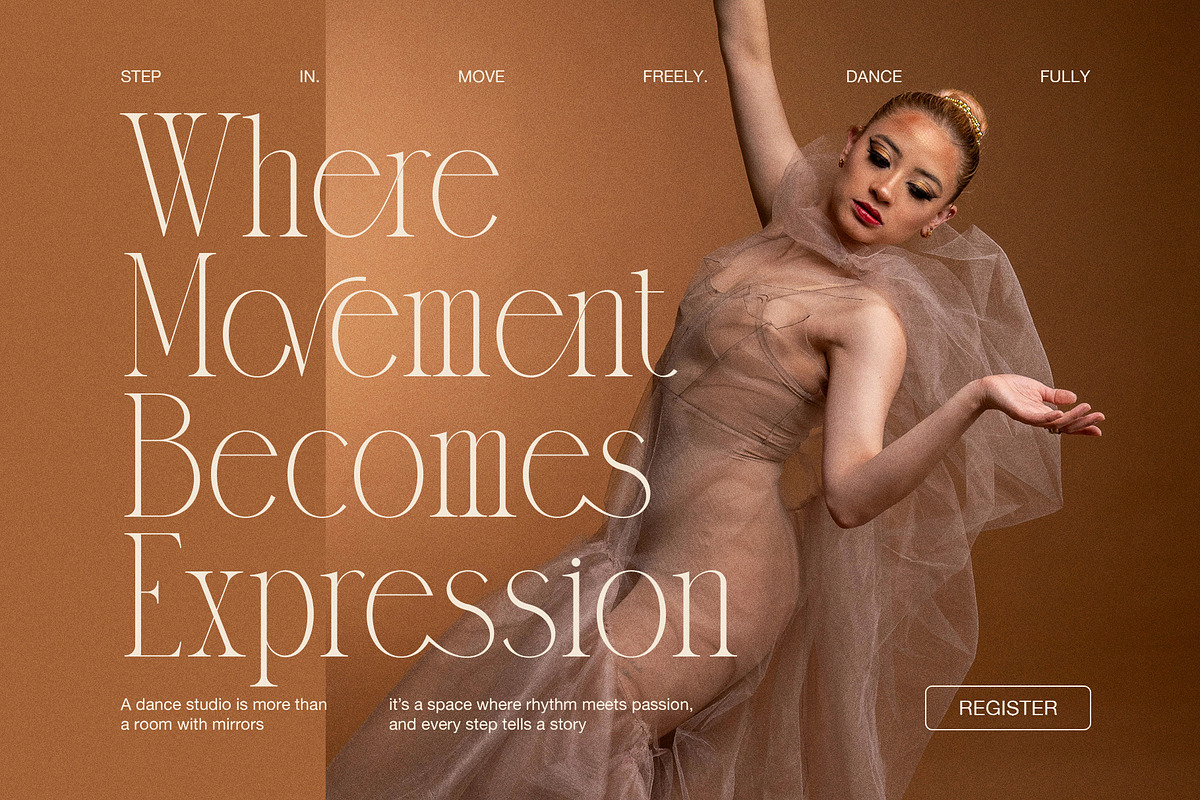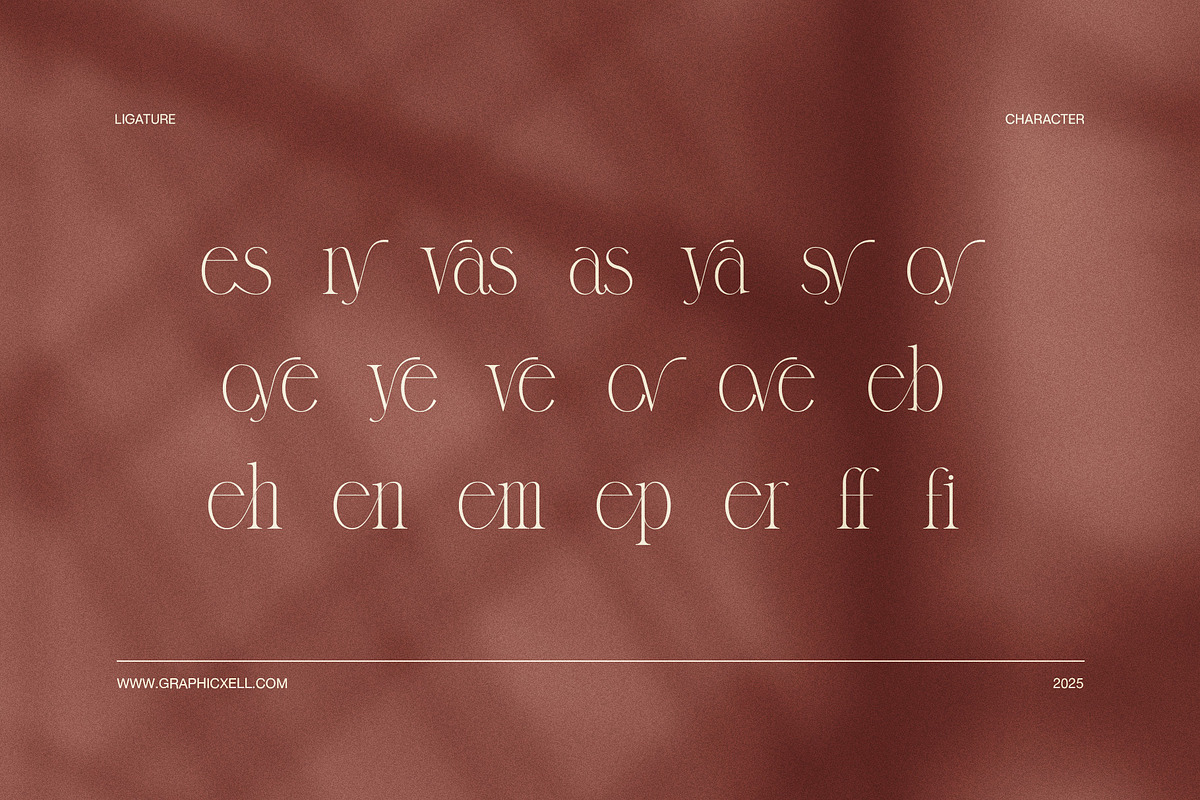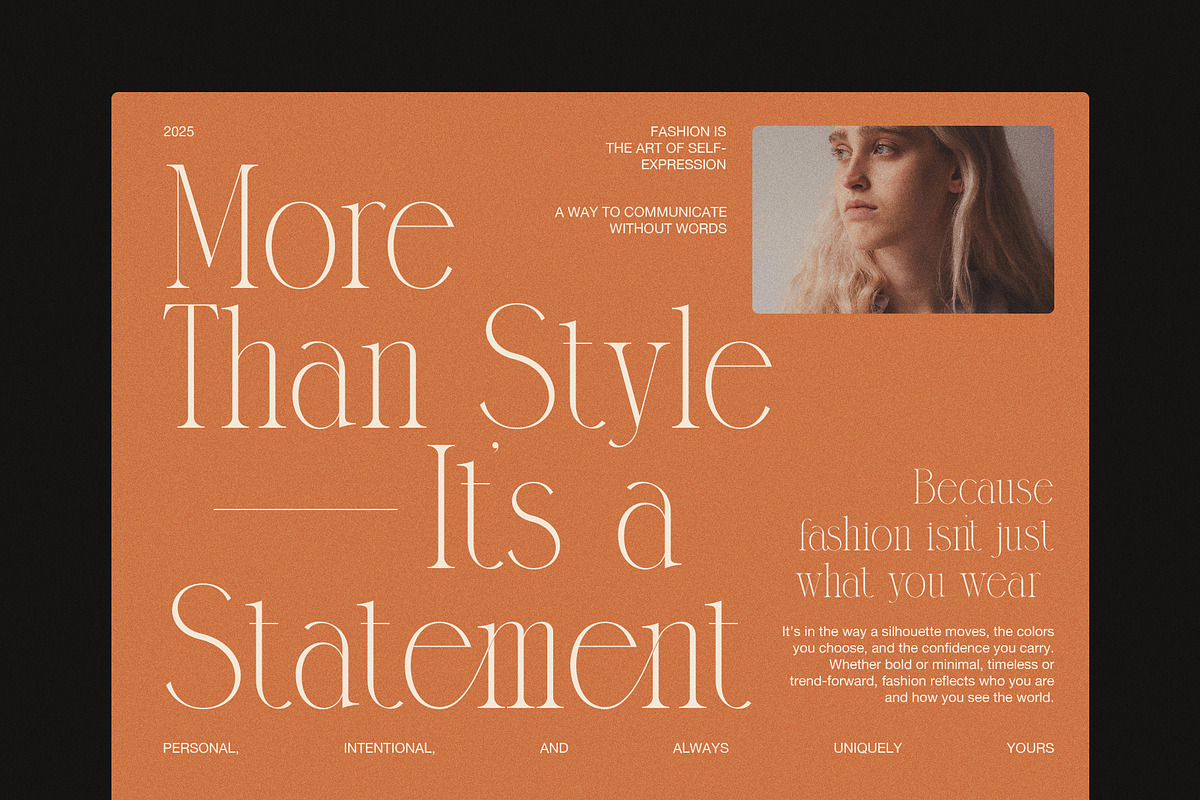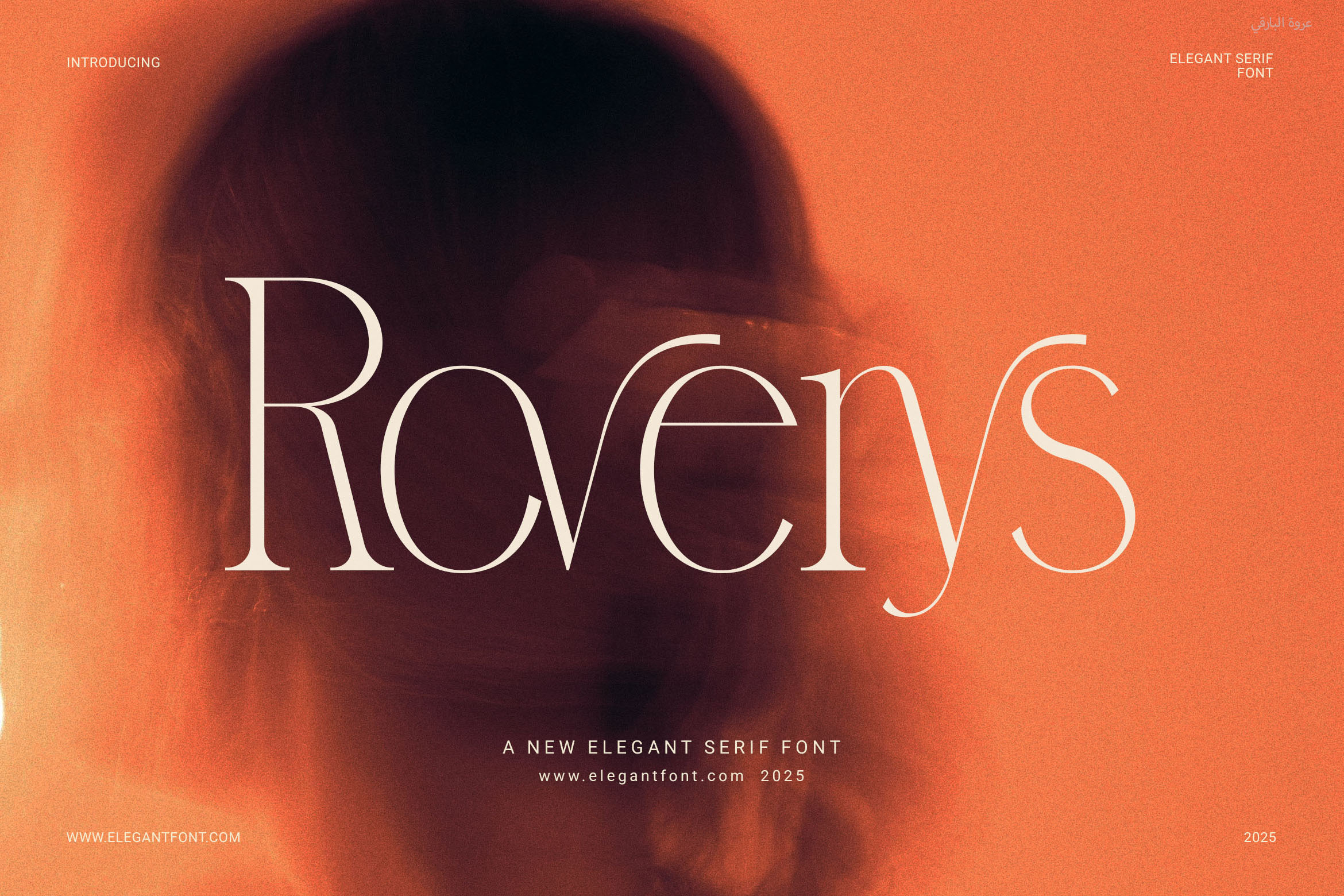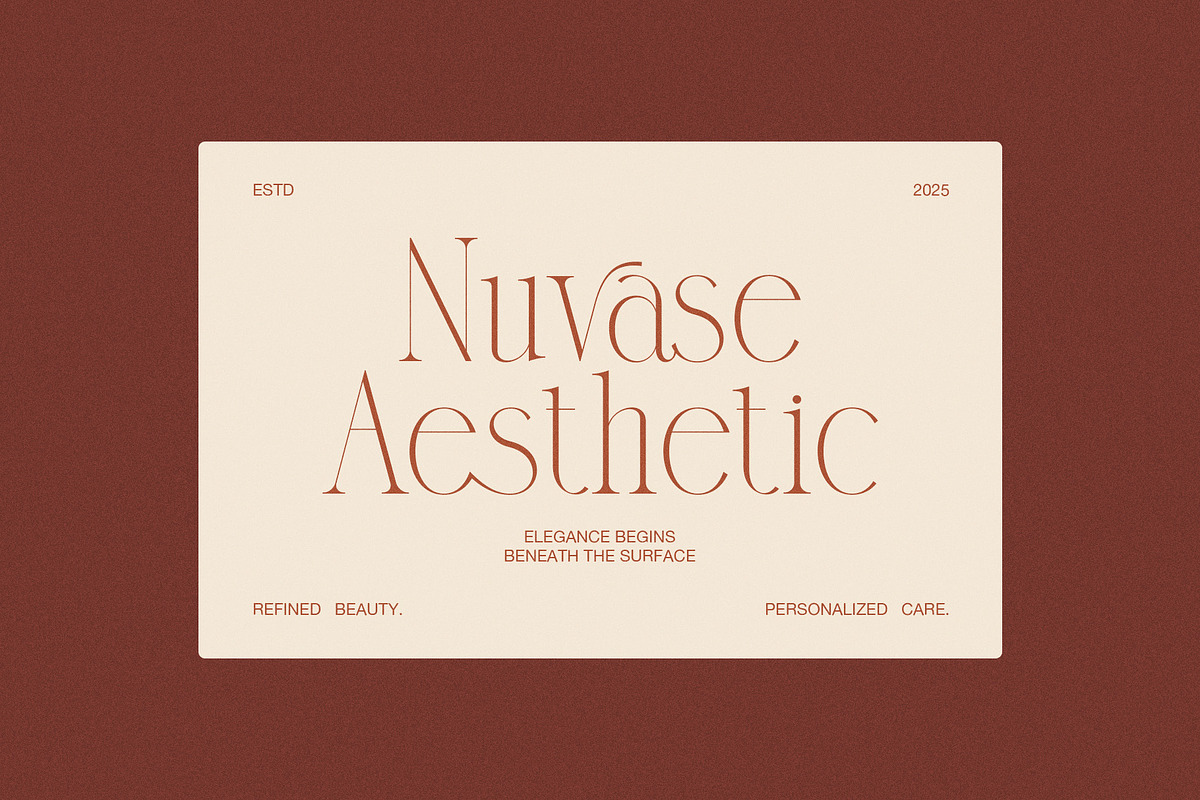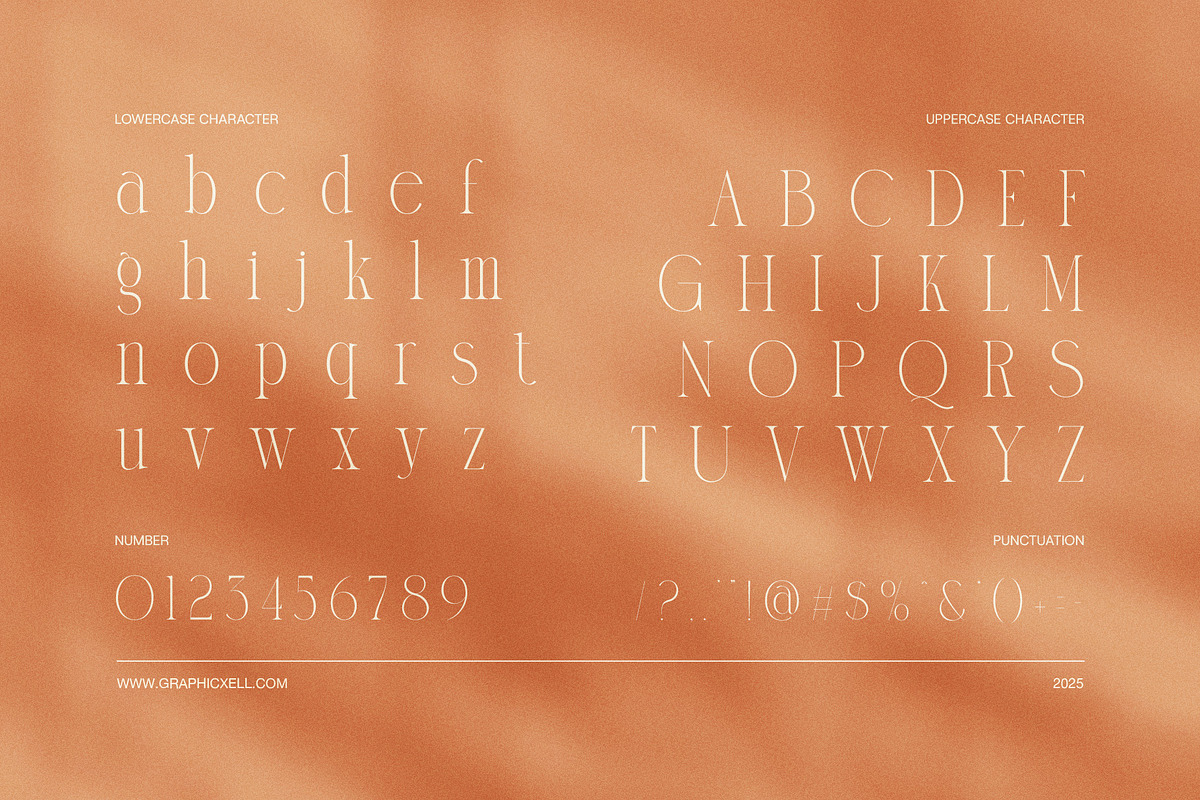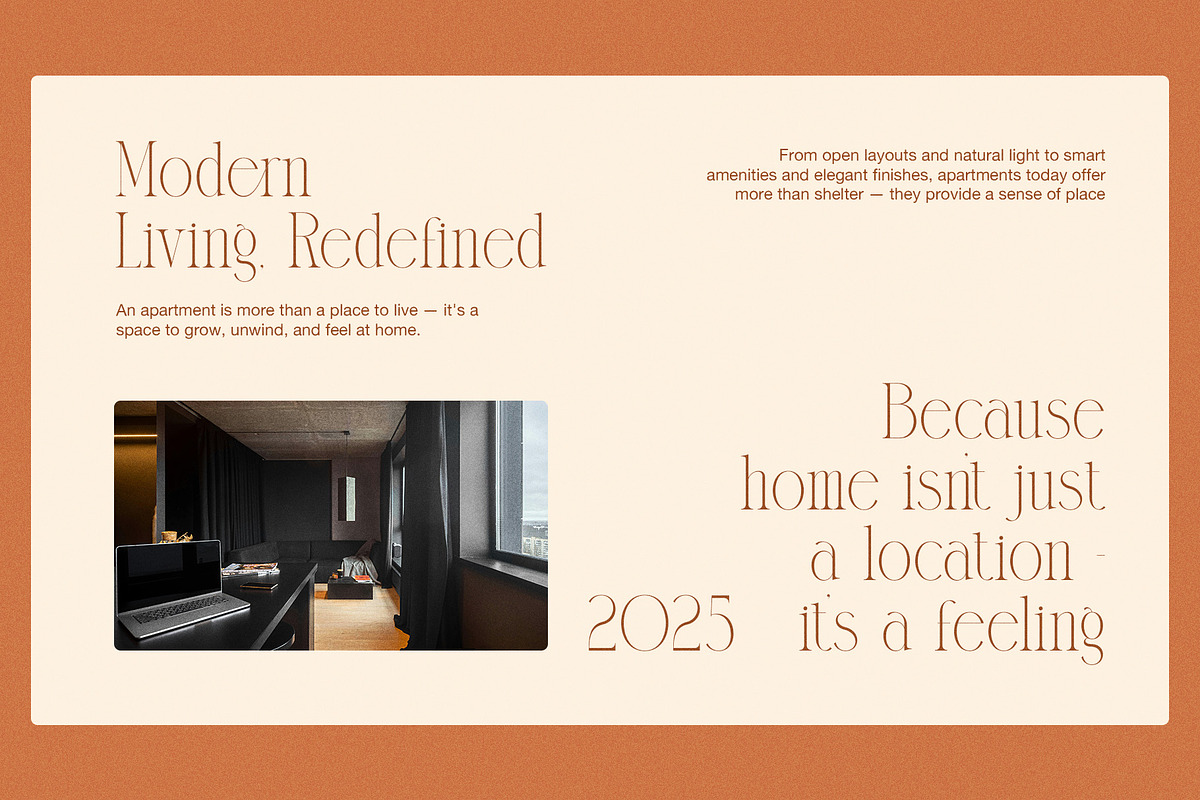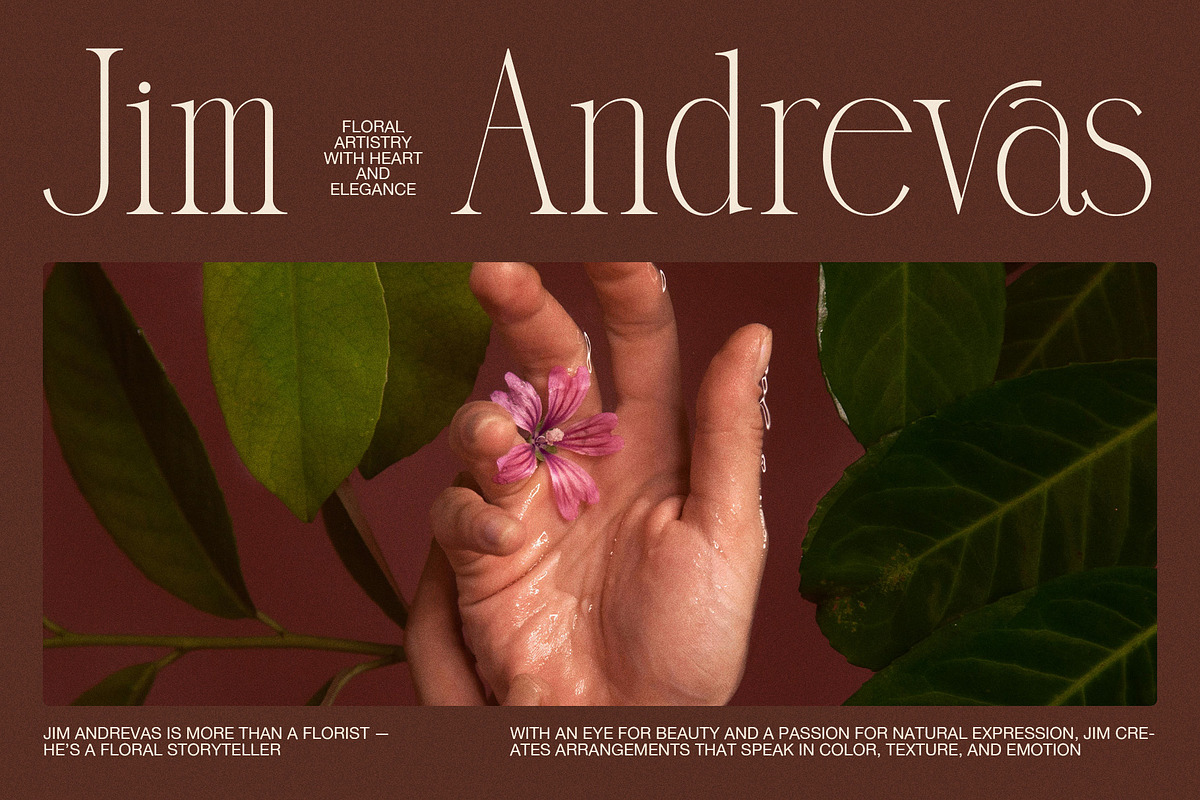
Roverys Minimalist Serif Font
Roverys – A Clean and Elegant Minimal Serif Font
Roverys is a modern serif font with a clean and simple look. Its thin strokes and sleek shapes give your design a stylish and polished feel. While the overall style stays minimal, it still shows elegance and class. Each letter is shaped with care, so it looks smooth and balanced in every design.
Besides that, Roverys includes helpful ligatures that make your text look more natural and flow better. Because of its neat form and soft edges, this font works well in many creative fields. You can use it for luxury branding, websites, labels, product designs, or magazines. It looks professional in every layout, whether on screen or in print.
Even more, Roverys keeps your message clear. If you're designing for fashion, beauty, food, or personal brands, this font adds a calm and refined touch. Since it's easy to use, it helps speed up your design process while still making everything look sharp.
📌 Where to Use Roverys:
Logos and brand names – To build a premium and clear identity
Magazine and blog headers – For a soft, high-end editorial tone
Web designs and digital media – To boost clarity and beauty online
Product packaging and labels – For a classy and stylish appearance
Social media graphics – To keep your posts clean and on-brand
Designers love Roverys because it's easy to match with different styles. Whether you use it for a big logo or small text, it always looks neat and modern. Also, the thin and balanced shapes help bring focus to the message, not just the design.